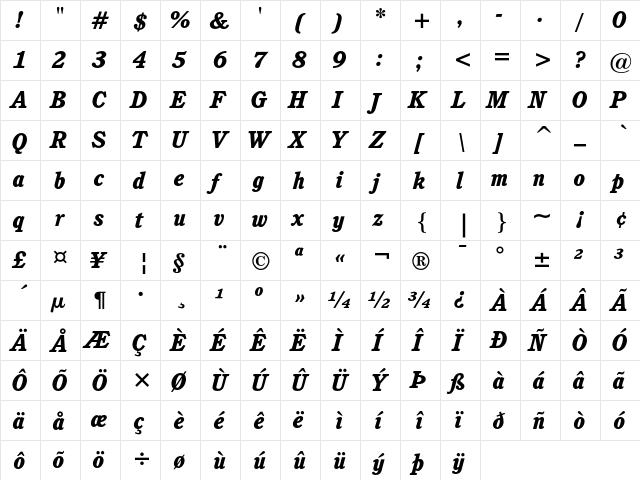
ITC Cushing Heavy Italic
Design Context for ITC Cushing Typeface
ITC Cushing offers clean, dependable letterforms without strong stylistic allegiance, making it a practical choice for designers who need flexibility. The dynamic lean of this cut emphasises speed and emphasis in any layout.
Pro Tip: Use ITC Cushing for emphasis, pull quotes, and subheadings where its slanted energy can add rhythm to the layout.